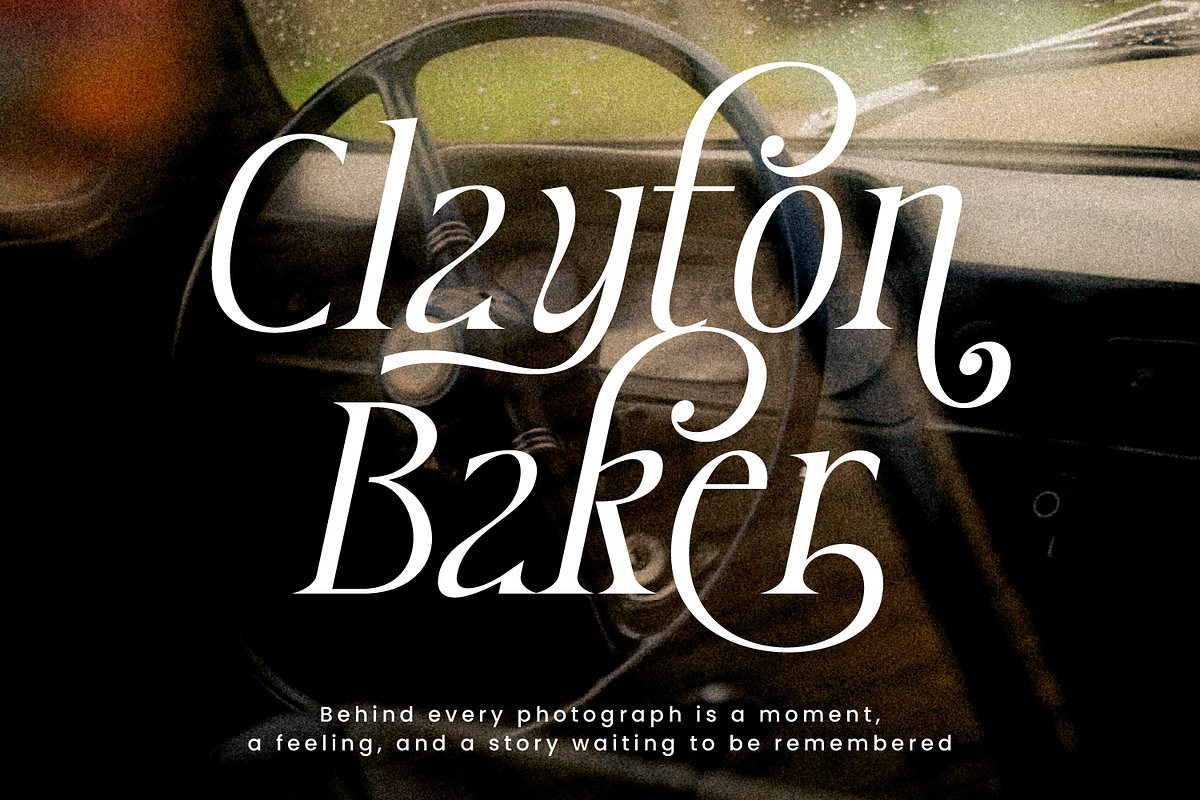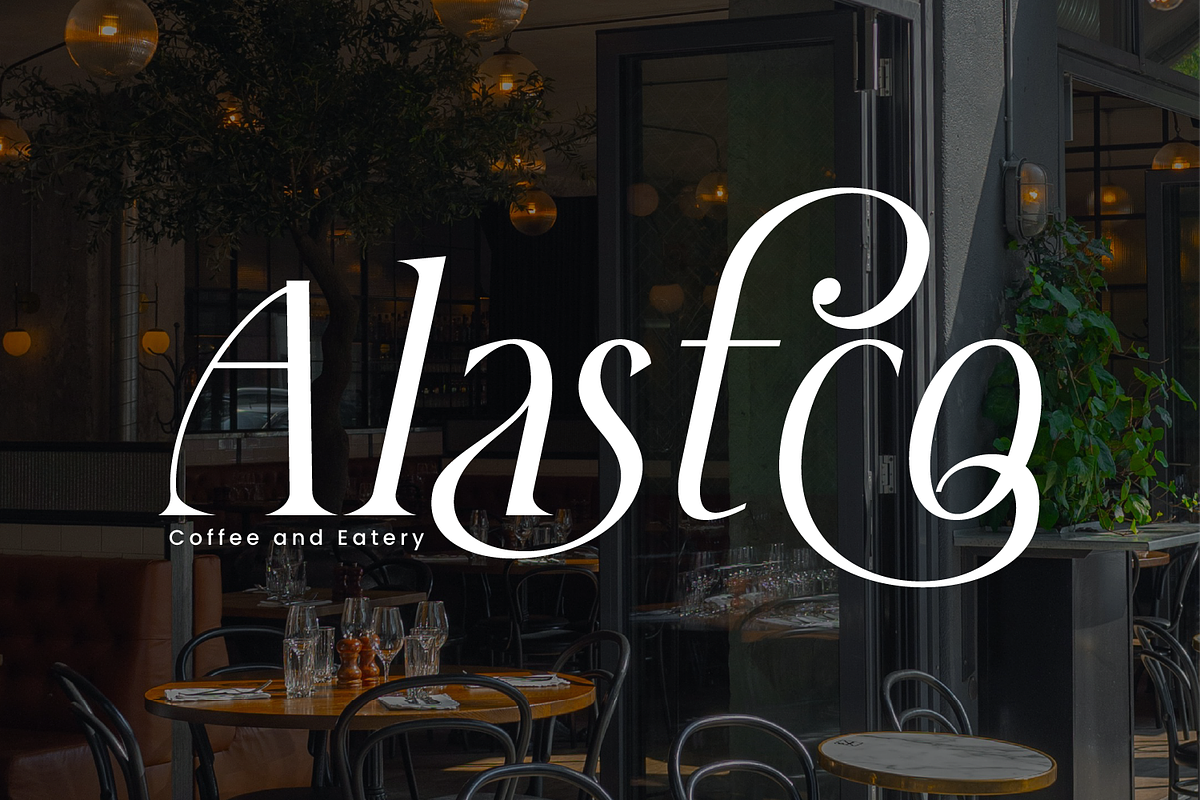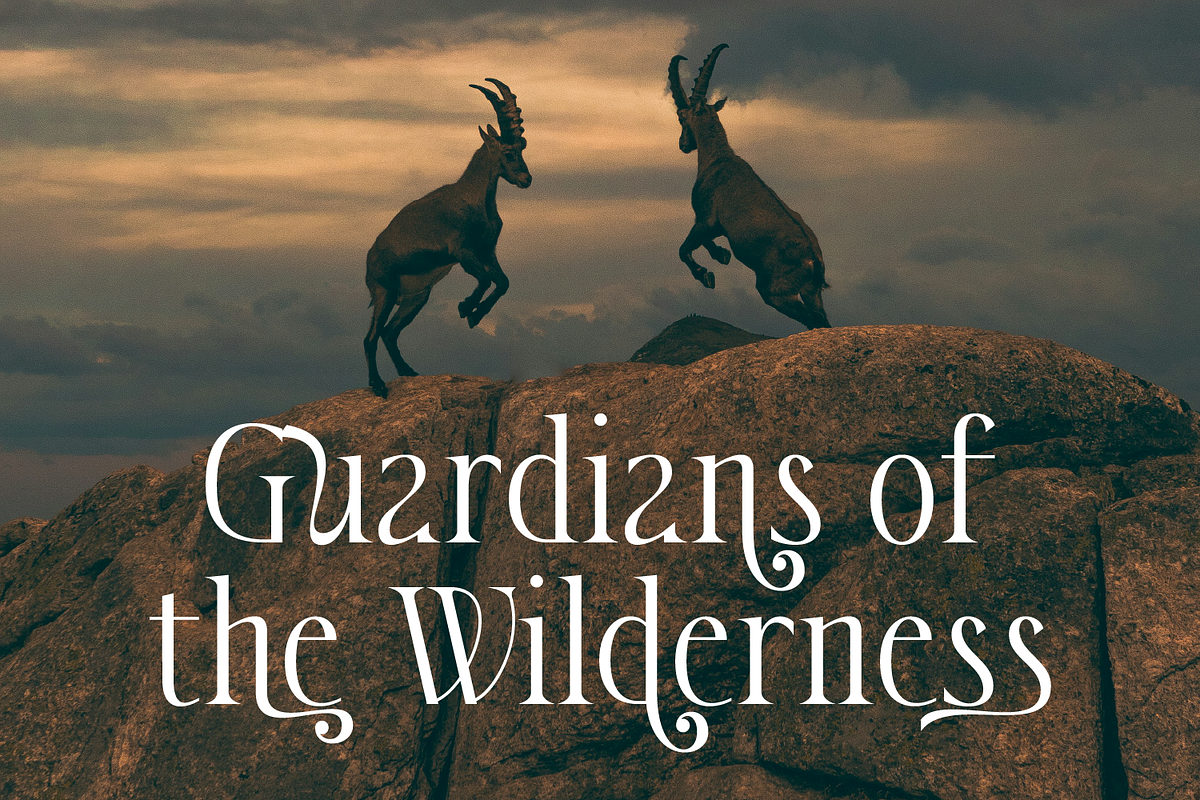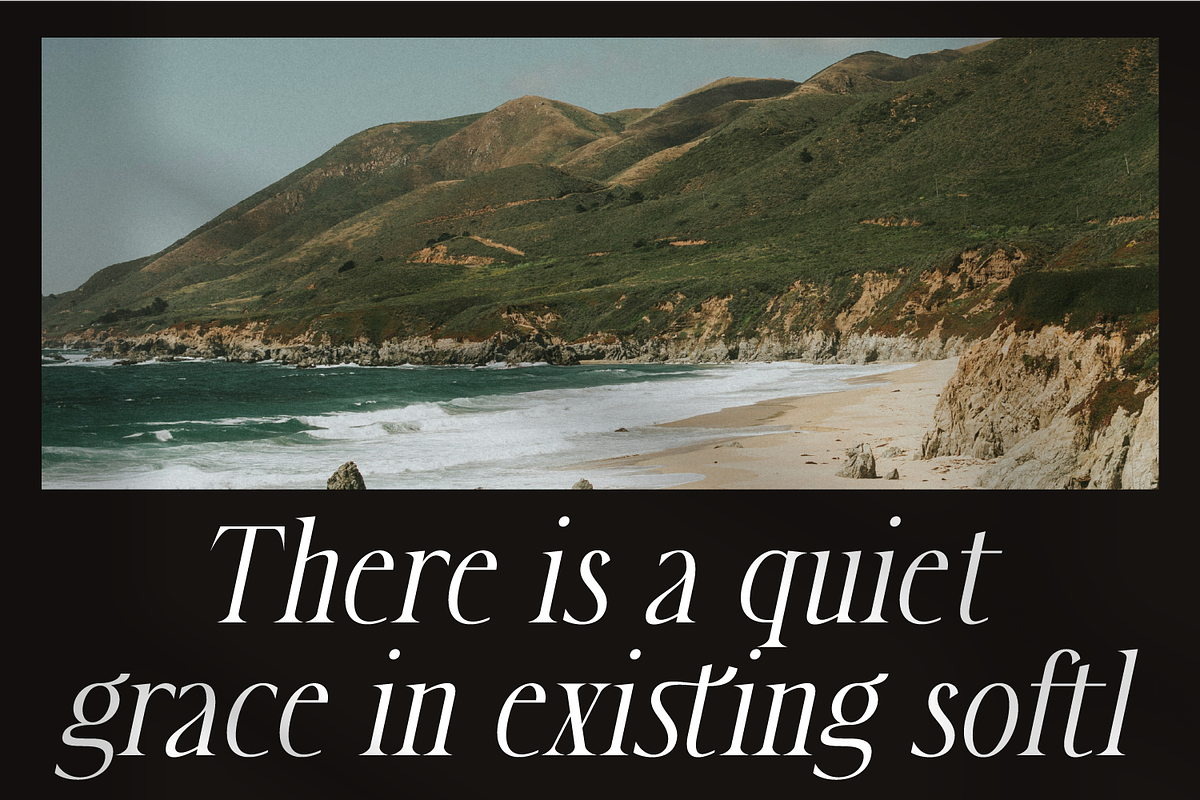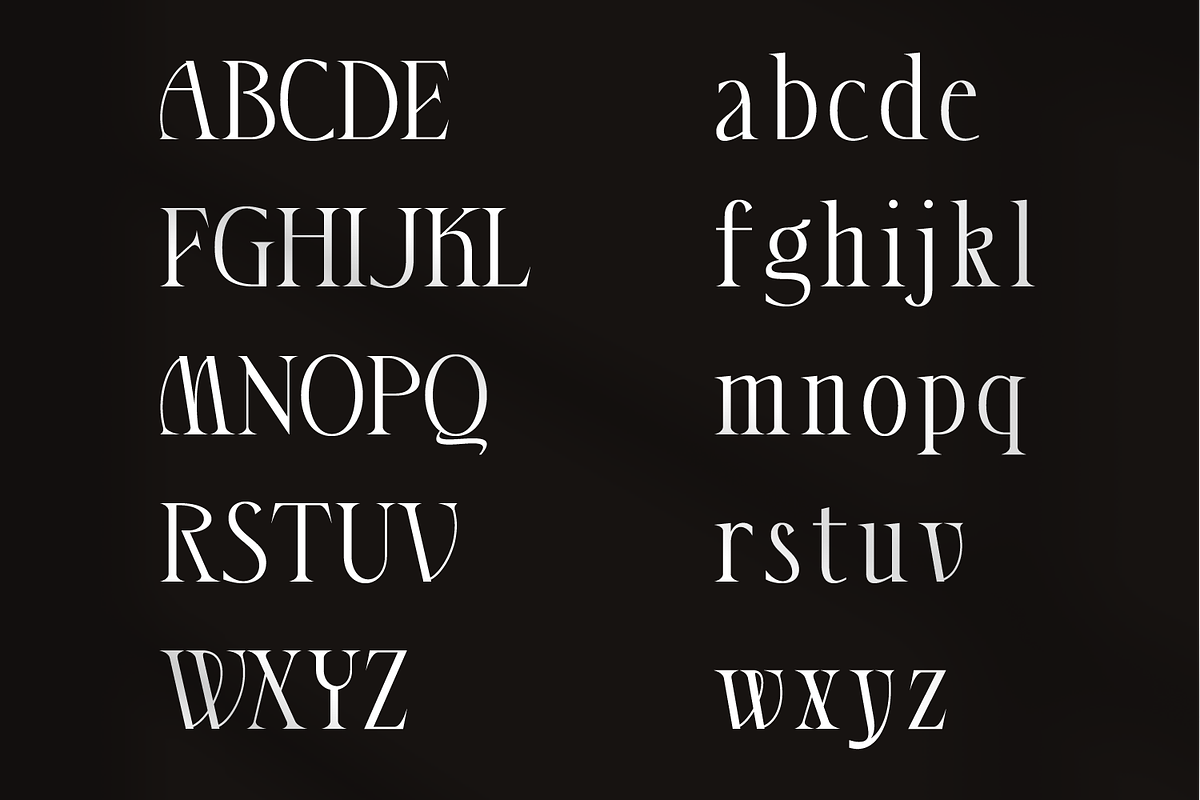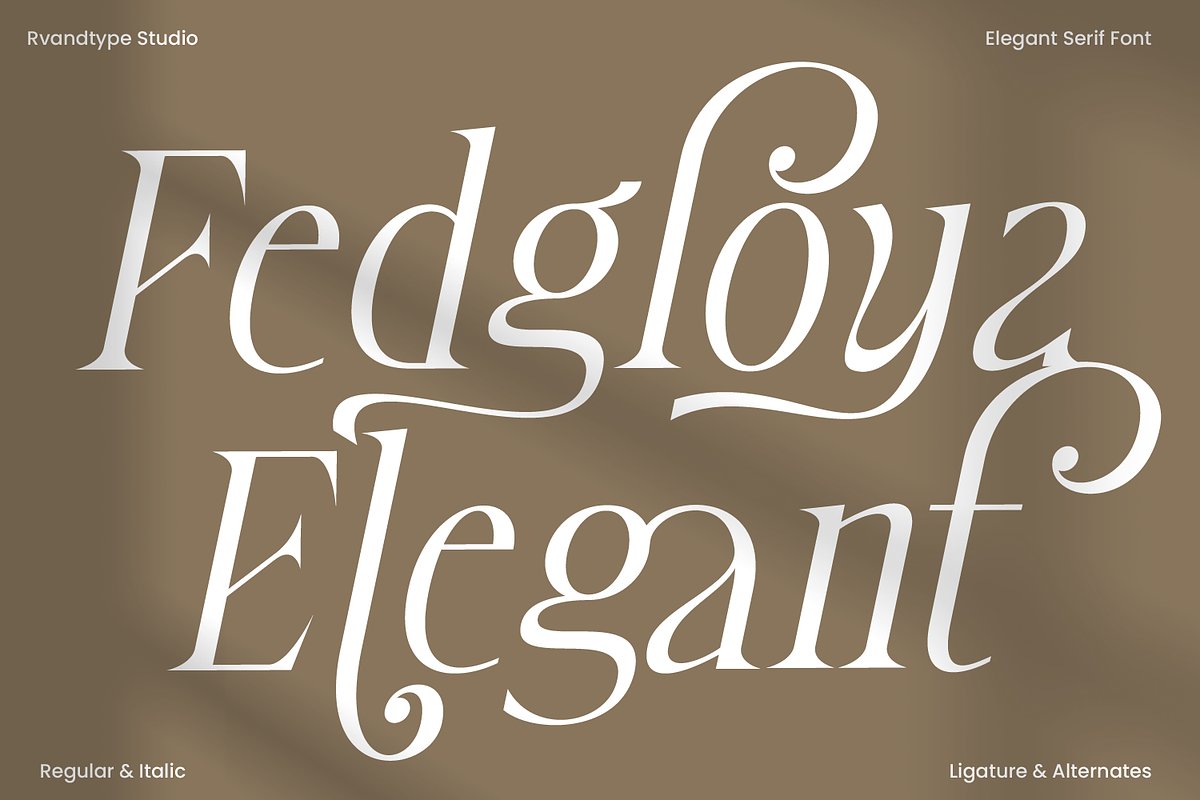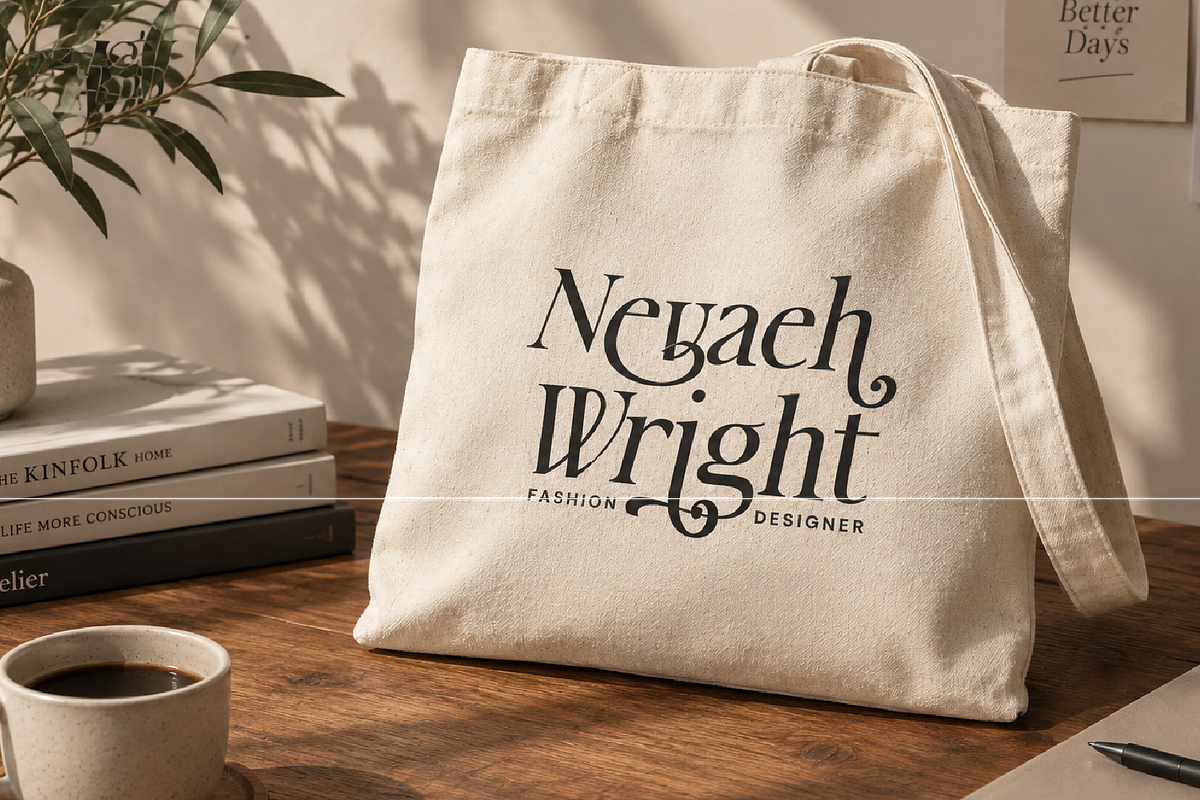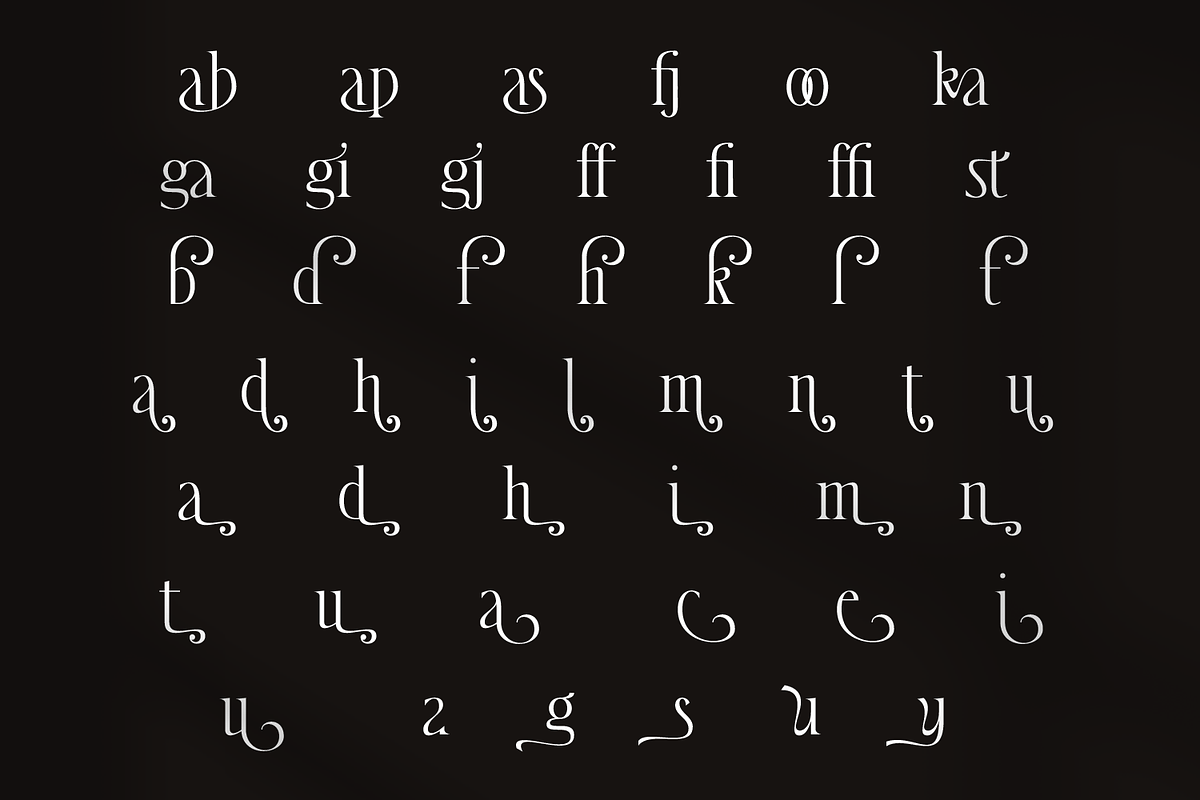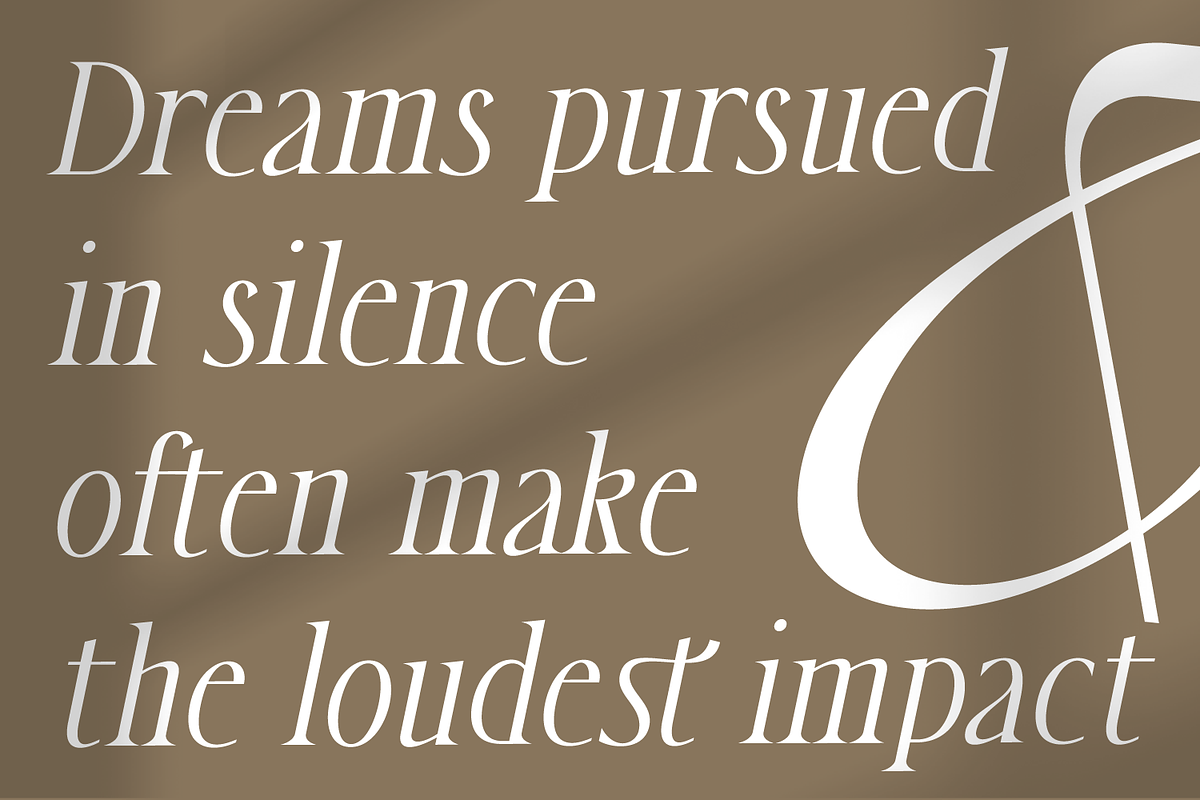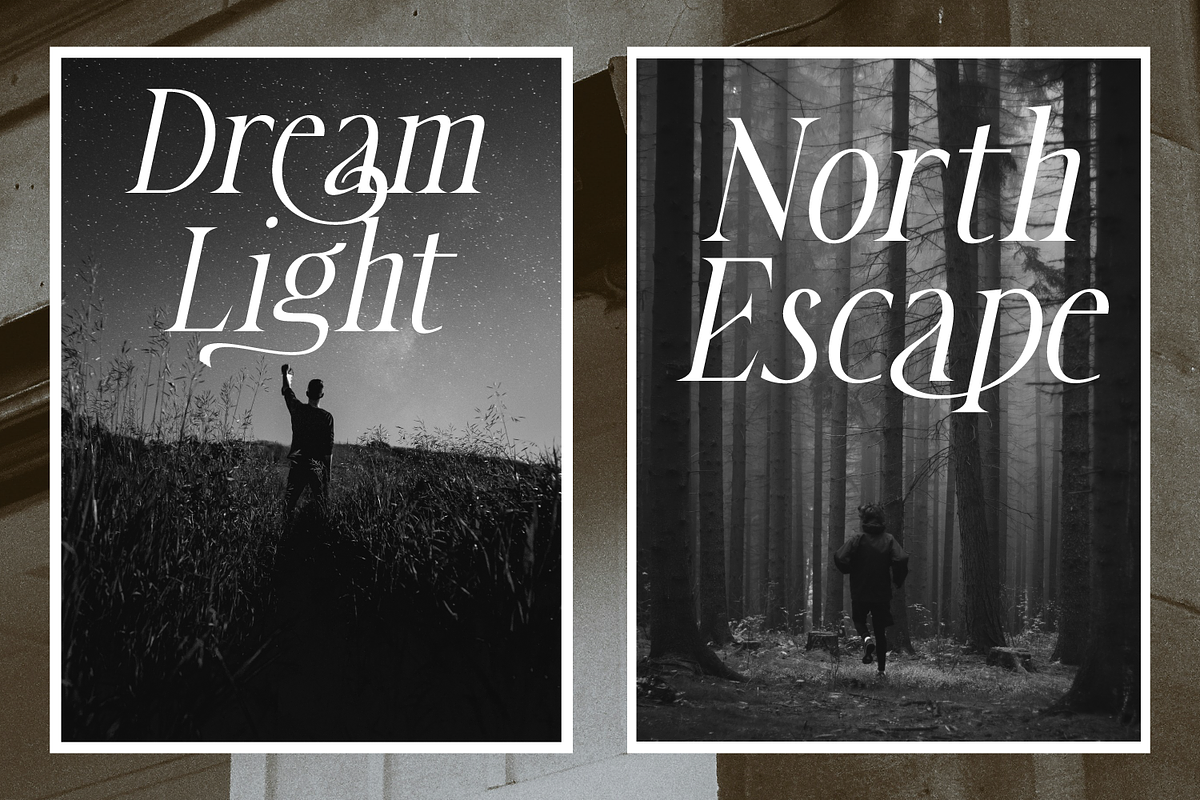
Fedgloya - Elegant Font
Fedgloya – Elegant Serif Font
Fedgloya is a refined, high-contrast serif typeface designed to bring timeless luxury and editorial charm to your creative work. Featuring graceful curves, distinct letterforms, and flowing swashes, Fedgloya offers a seamless balance between classic sophistication and modern visual aesthetics.
With both Regular and Italic styles accompanied by a versatile collection of custom ligatures and stylistic alternates, this font provides maximum creative flexibility for standout typography.
2 Styles: Regular & Italic
Character Set: Full Uppercase & Lowercase
OpenType Features: Rich selection of Ligatures & Stylistic Alternates
Punctuation & Symbols: Complete numbers, punctuation marks, and accents
Multilingual Support: Accent support for major Latin-based languages
Ideal For:
Luxury branding & high-fashion identity design
Magazine covers, headlines, and editorial layouts
Product packaging & cosmetics branding
Wedding invitations & stationery
Photography overlays & quote graphics